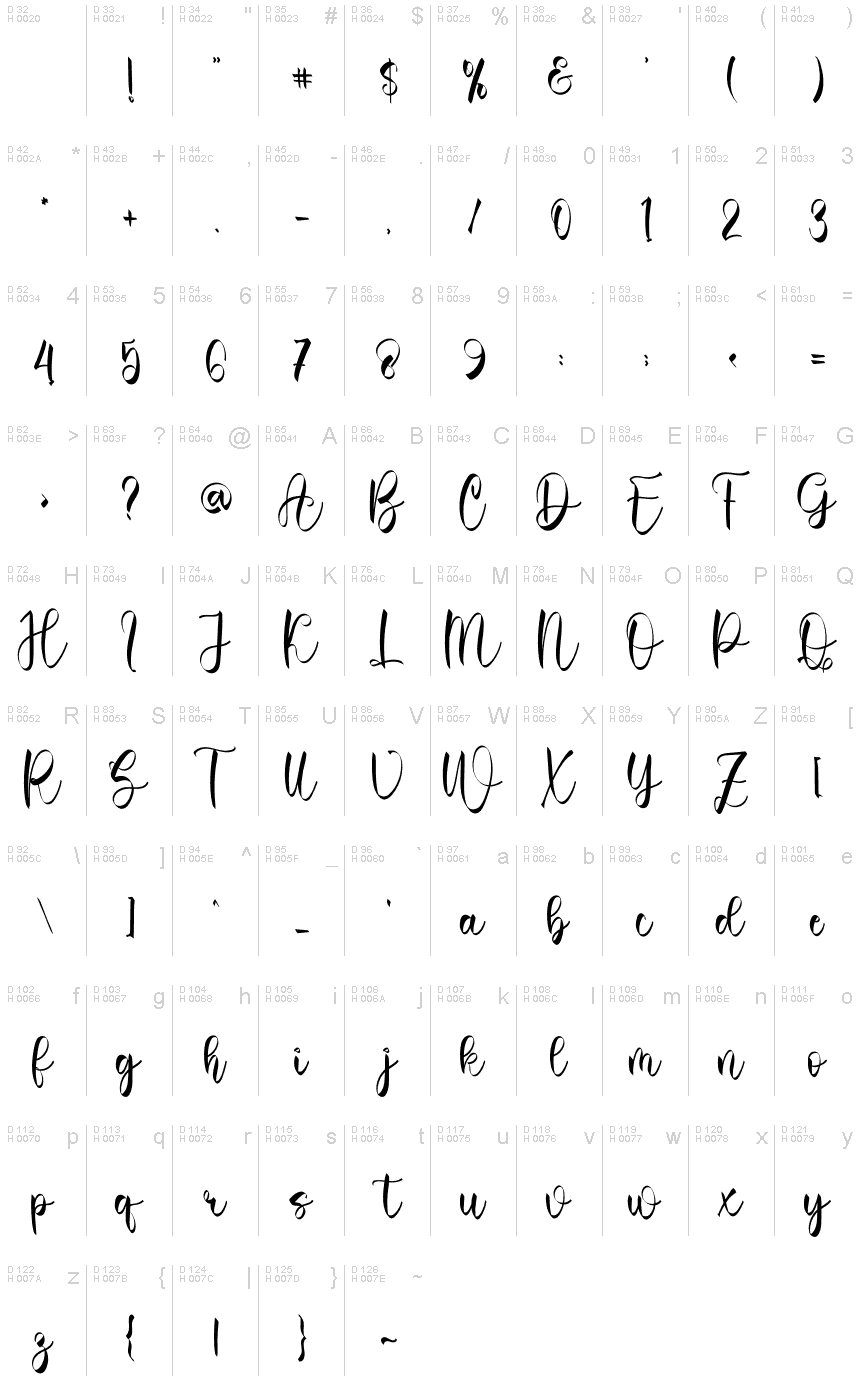
Winter Vintage
Winter Vintage, a charming handwritten font with a vintage touch designed by FreshtypeINK. The light weight adds a delicate and sophisticated feel to your designs, making it perfect for greeting cards, branding, and packaging. This font adds a personal touch to any project, making it a great choice for bloggers and social media graphics as well. Bring a cozy and nostalgic feel to your designs with Winter Vintage.